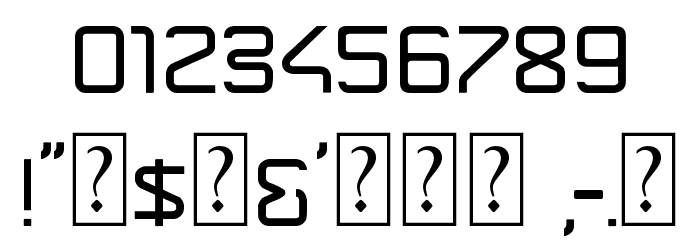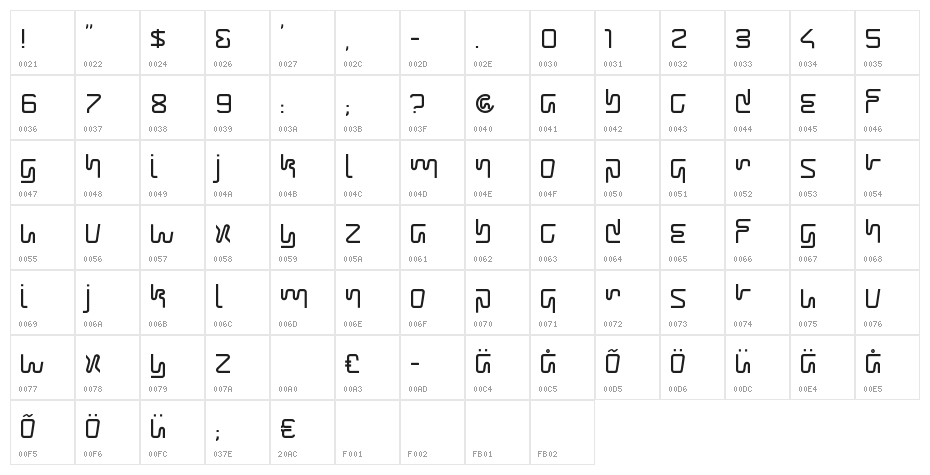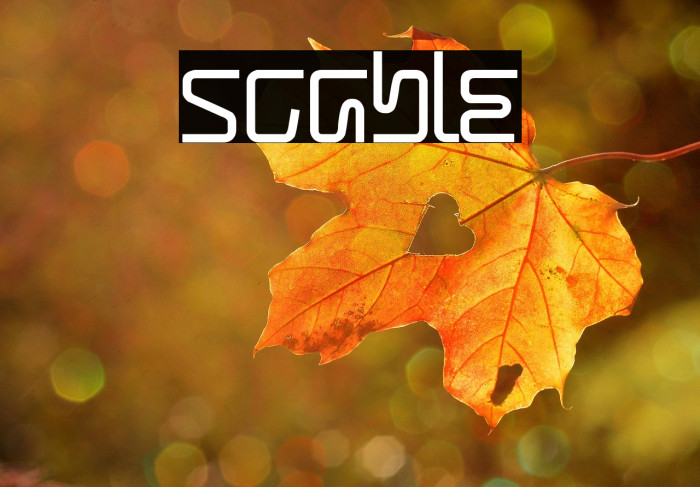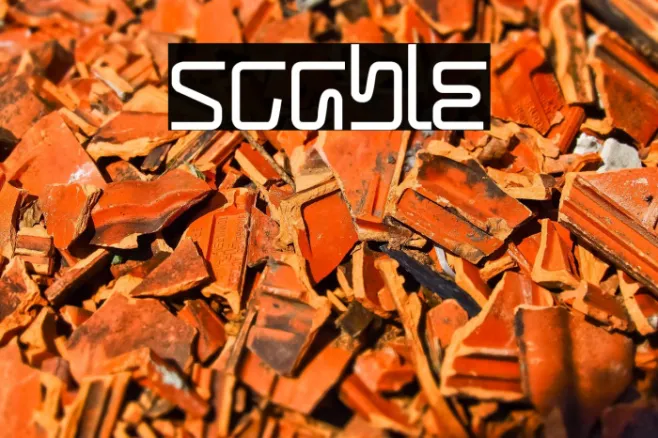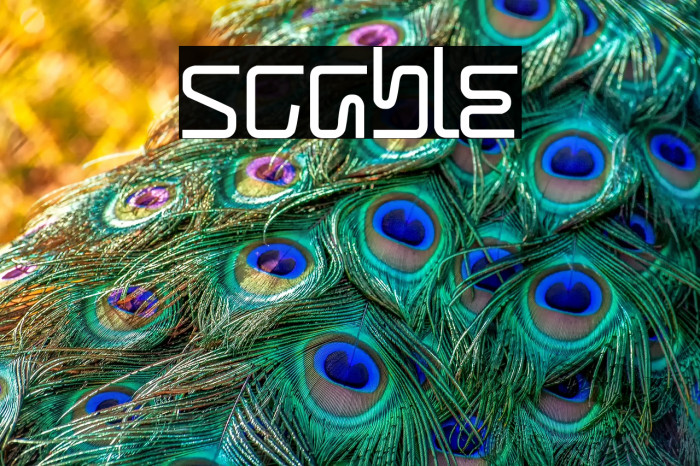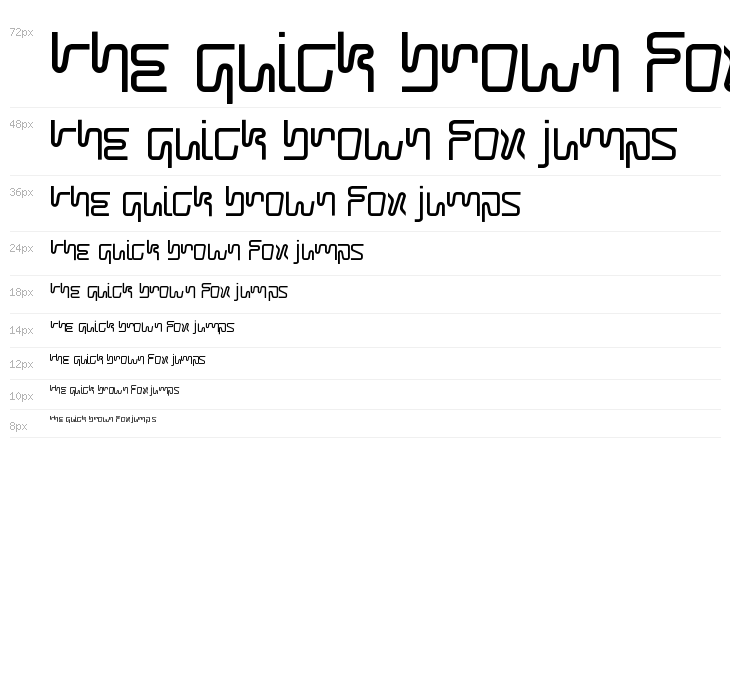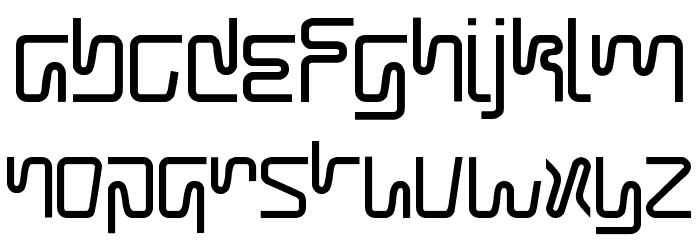
Scable Font
Scable Description
This font features a unique, futuristic design with a geometric and modular structure. Each character is crafted with a consistent line weight, creating a cohesive and modern appearance. The letters are composed of straight lines and curves, giving them a distinctive and innovative look. The font maintains a uniform height across all characters, enhancing its readability while still offering an avant-garde style. The special characters and numbers follow the same design principles, ensuring a harmonious overall aesthetic. This font is ideal for projects that aim to convey a sense of modernity and technological advancement.
| Proposed Projects | Ideal for tech branding, sci-fi posters, modern logos, and digital interfaces. |